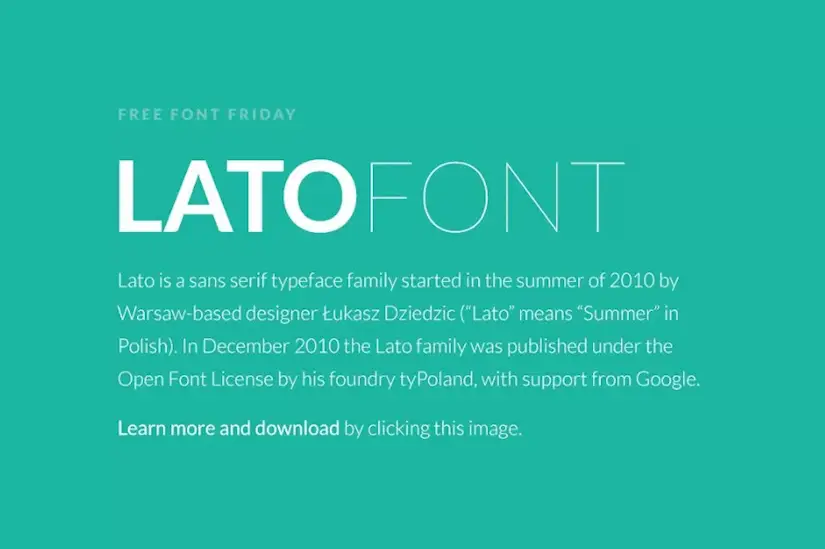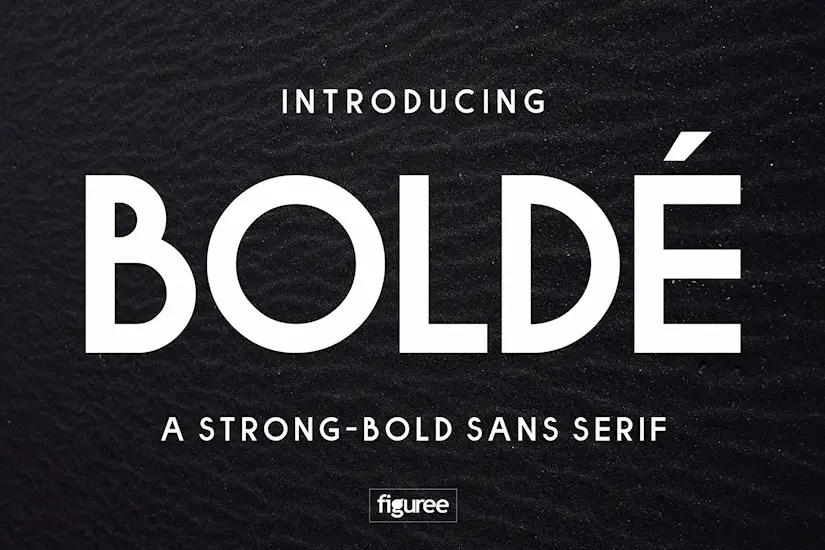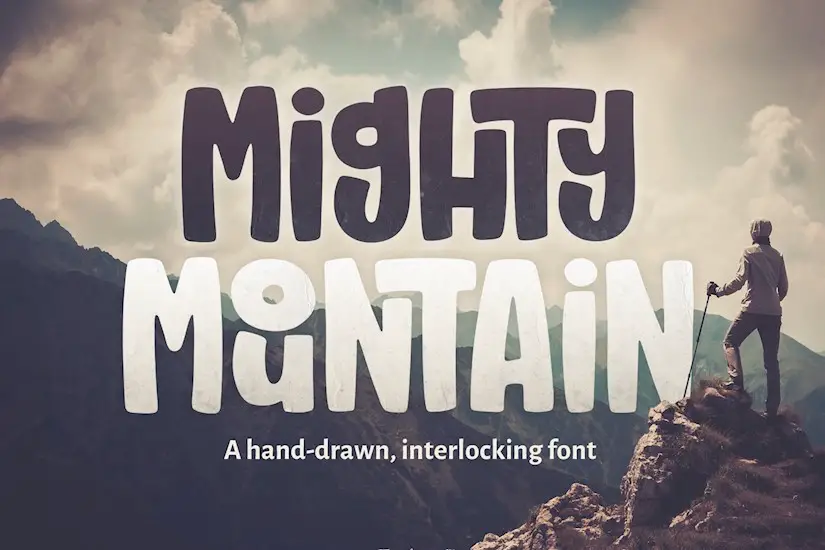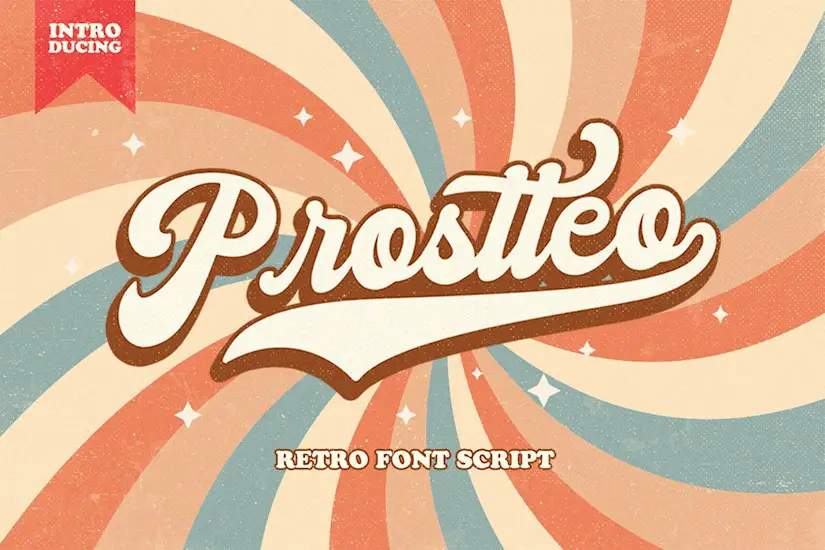
If you need to make a direct impact on your audience, choosing a bold font to frame your design, is one of the best ways to go. Although the correct thick font will draw instant attention, it will also allow for your actual design to shine.
Mosk Free Font
Dafont has created clean, bold font duos for your designs to look stylish and modern. Mosk is an amazing typeface, extremely suitable for headlines and titles.
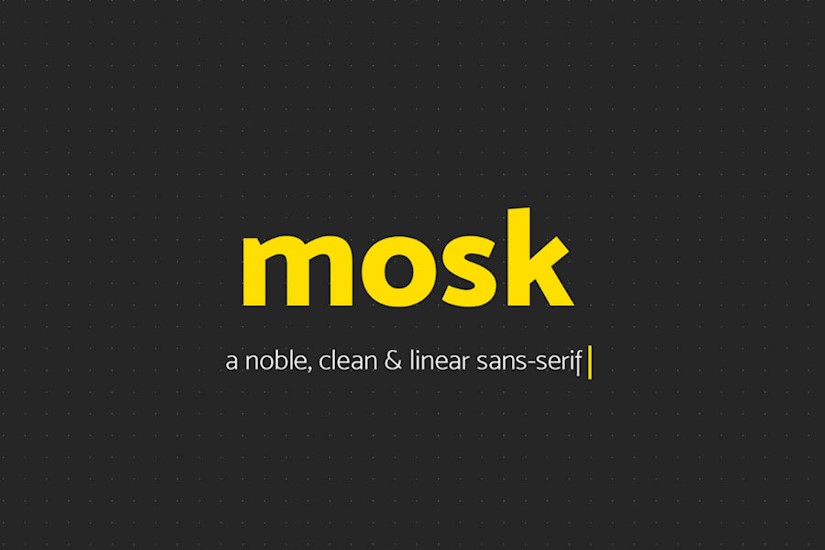
Bison – A Powerful Sans Serif
By including four different weights, two outlines, and six italics, this is a complete thick font package created by Ellen Luff.
Bebas
Bebas thick font has gained great popularity as a display bold font. This sans-serif font is ideal for your advertising industrial designs and many other projects.
Margin – Retro Serif Font
Dharmas studio has designed an amazing retro serif font package for your nostalgic designs. Margin is a bold font, which is ideal to give a 70s groovy vibe to your designs.
Frank
Frank is an amazing bold font package by Dafeld, specially created for prints, t-shirts and posters. The creator included 20 different fonts with 5 weights and 4 styles, for amazing, unique designs.
Savana – Script Bold Font
This is a font that utilizes a stunning calligraphy style. If you need an amazing script bold font for your designs, Savana is simply the best choice.
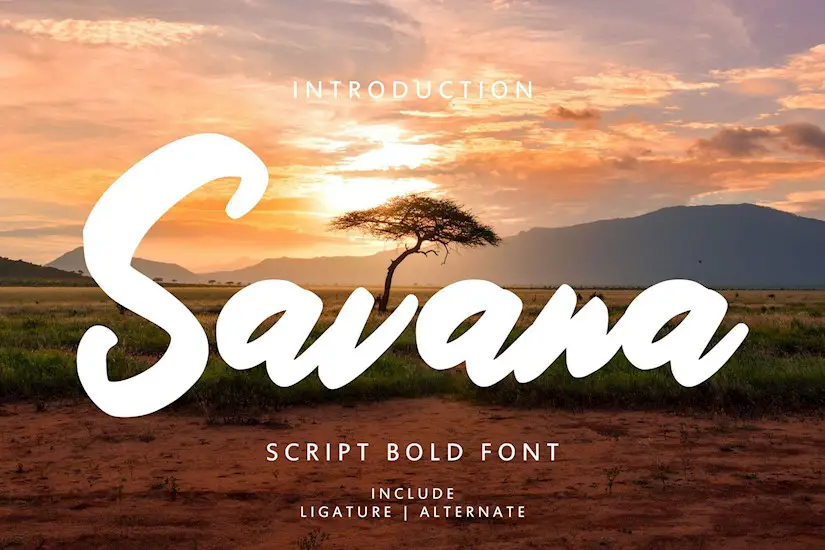
Katro Brush Bold Font
Katro is the perfect brush bold font for event posters. It is extremely popular for extreme sport advertisements, but suitable for numerous other projects too.
Qualy Logo Font | Logo & Branding
Shina Designs has created one of the best thick fonts for logo and branding designs. Qualy includes a complete font set, that will make your projects look fresh and ambitious.
Dallas | A Vintage Sans
If you are looking for a thick typeface, which is both minimalist and vintage, Dallas is the best way to go. This font family is perfect to make a statement through your designs.
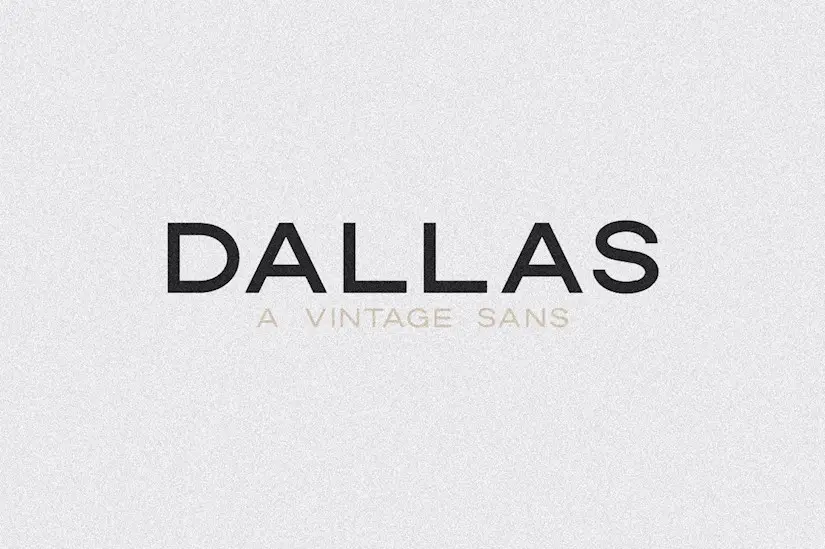
SALVAGES BOLD | SERIF FONT
By utilizing a vast number of alternates, Salvages is an all caps, bold font for numerous designs. The font promises to provide an elegant, still playful, look to your projects.
Bullate – Blobby Bold Font
Bullate is the best on our list for those of you who want the most playful thick font. It utilises a unique hand-drawn style to help you design stunning logos, posters etc.
Nexa
Nexa is a stunning bold font designed by Svet Simov. The package includes a set of 16 fonts and 2 different weights, and is one of the most modern-looking fonts on our list.
Skiba Font
Skiba is a hand-drawn inline bold font, created by Denise Chandler. It is suitable for your playful or peaceful designs, and includes all characters and punctuation needed.
London | A Luxe Serif
Jen Wagner Co has created London, an elegant font for your minimalist designs. This Serif font is perfect to use as a title or heading in logos, wedding invitations, business cards, etc.
Blockhead Typeface|Bold Geometric Font
If you want a robust slab serif font for your industrial designs, there is no better solution than Blockhead. The set includes numerous glyphs, all characters and 4 different weights.
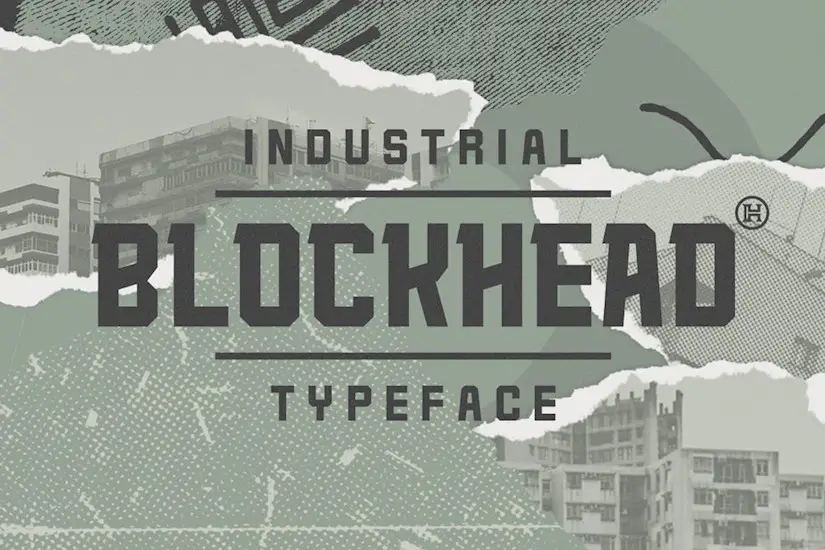
Movavi Grotesque Black
Movavi is one of the most complete bold font packages you can download for free. This Grotesque font is stylish and you can include it in different types of designs.
BROKENZ – BOLD SANS 4 FONT
As a decorative, Sans-Serif font, BROKENZ promises to give a professional look to numerous designs. It includes 4 different styles, and can be used in almost any software.
Phenomena Extra Bold
Phenomena is one of the most popular Sans Serif typefaces you can find for free. It utilizes round geometric shapes, and promises to be ideal for both retro and minimalist designs.
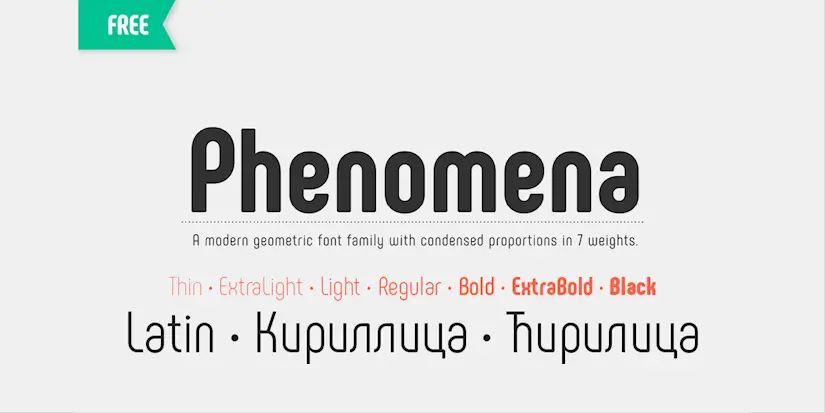
Peace Sans
Sergey Ryadovoy has designed Peace, a stunning bold typeface, which became extremely popular as one of the most flexible fonts on the market.
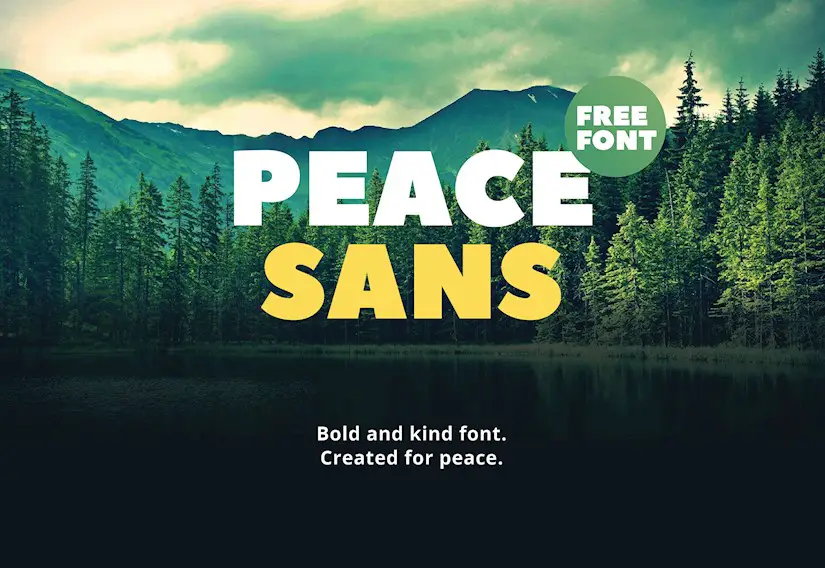
Cigra – Stylist Serif With Ligature
By including a vast number of alternates and stylistic sets, Identitype Co. has designed one of the most elegant, hand-lettered bold fonts, to beautifully frame your upcoming designs.